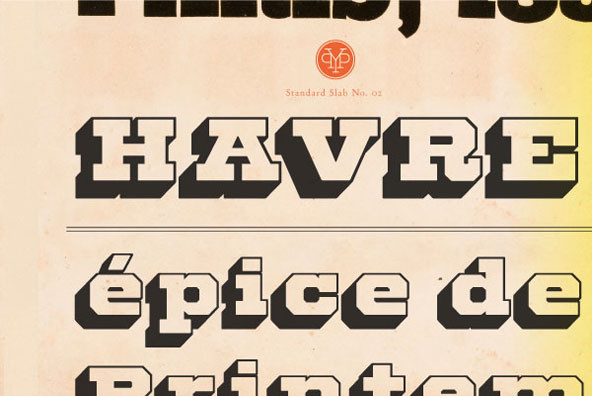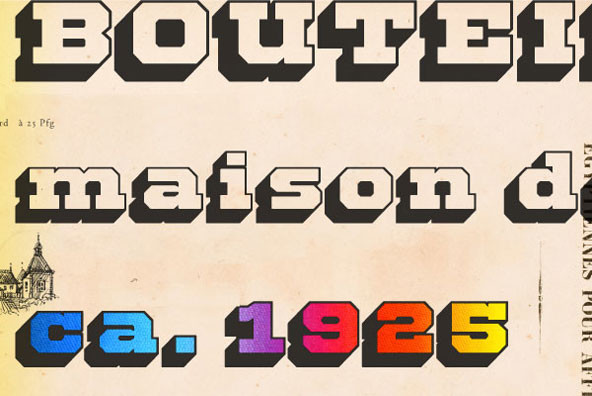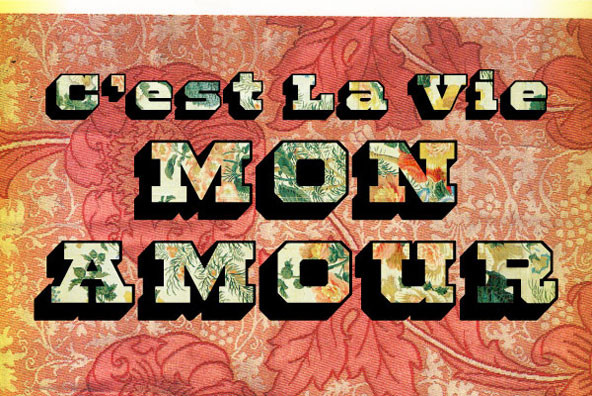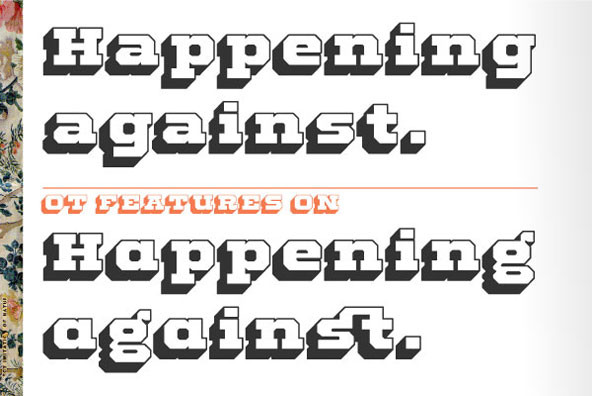
Standard Slab
The Standard Shaded family is an homage to the grandiose Woodtypes of yesteryear. Standard blends a contemporary sense of craft and proportion with a dash of Woodtype-era personality to keep things interesting. The Standard Shaded family features OpenType conventional ligatures, discretionary ligatures and stylistic alternates as well as a standard set of accents and symbols to provide a versatile end-user experience. Standard has seen action in the print, web and motion arenas for clients such as IFC, Showtime, Nike Women's Training, Nike Sportswear, Target and Starbucks. Standard Sans and Standard Slab are designed by Lee Schulz.